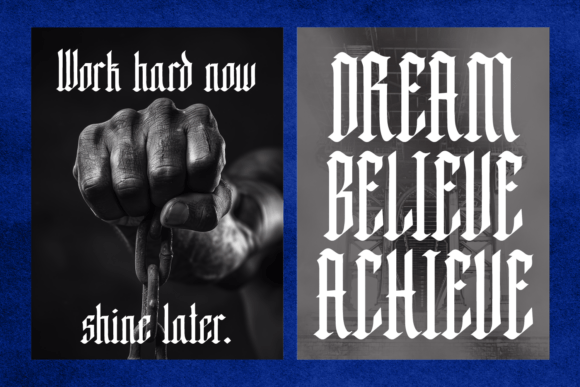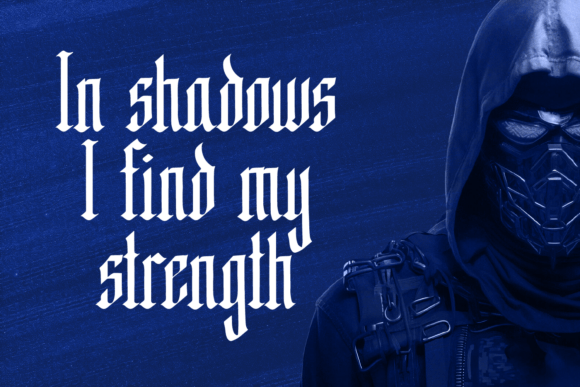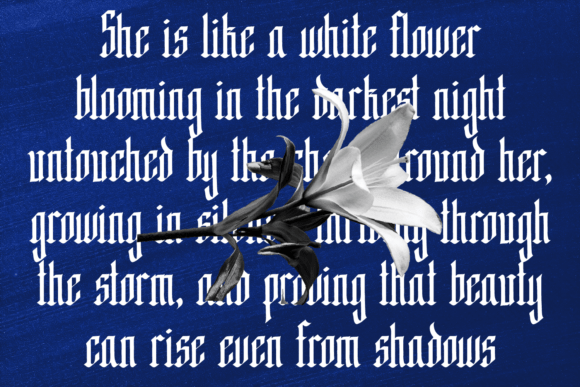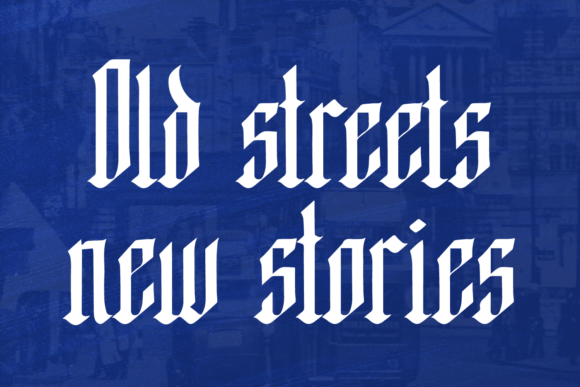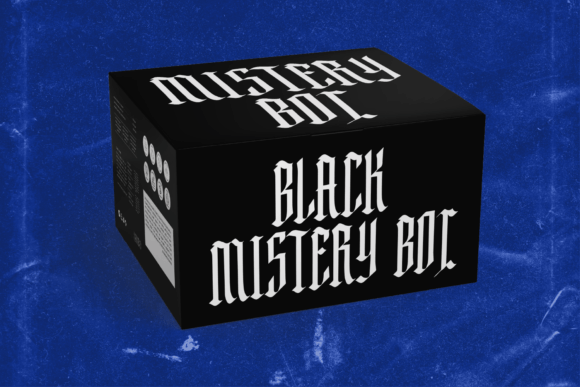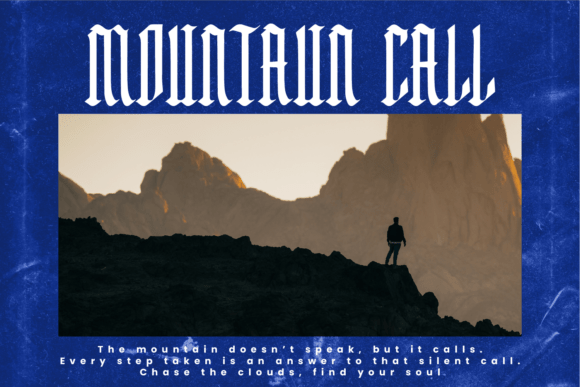
Unleash the Power of Hagevra: A Blackletter Font that Redefines Boldness
In the realm of typography, few fonts have managed to capture the essence of both ancient elegance and modern sophistication. Hagevra, a striking blackletter font, has successfully bridged the gap between the archaic charm of Gothic scripts and contemporary dynamism. This magnificent font is poised to revolutionize your design universe with its towering, acute, and definitive letterforms that exude palpable strength, fervor, and trend-setting panache.
The Birth of Hagevra: A Marriage of Eras
Hagevra’s design is rooted in the rich history of Gothic scripts, which were characterized by their dramatic flourishes and intricate details. However, this font has been carefully crafted to meet the demands of modern design, making it an ideal choice for creatives seeking to make a bold statement. By combining the best of both worlds, Hagevra’s creators have given birth to a font that is both nostalgic and forward-thinking.
Key Features of Hagevra
- Bold and Dramatic Letterforms: Hagevra’s letterforms are designed to make a lasting impression. With their towering vertical lines and acute angles, they add a level of sophistication and elegance to any design.
- Blackletter Flair: Hagevra’s blackletter roots give it a distinctive, dramatic flair that’s perfect for creating eye-catching headlines and titles.
- Contemporary Twist: Despite its historical roots, Hagevra has been carefully updated to meet the demands of modern design. Its clean lines and streamlined aesthetic make it an excellent choice for digital media.
- Versatility: Hagevra is an incredibly versatile font, suitable for a wide range of design applications, from posters and album jackets to branding and packaging.
Design Applications: Where Hagevra Shines
Hagevra’s unique blend of style and substance makes it an ideal choice for various design projects. Here are some areas where this font truly excels:
- Posters and Flyers: Hagevra’s bold, attention-grabbing letterforms make it perfect for creating striking posters and flyers that demand attention.
- Music Album Jackets: Add a touch of sophistication and elegance to your music album designs with Hagevra’s dramatic, blackletter-inspired aesthetic.
- Branding and Packaging: Hagevra’s versatility and style make it an excellent choice for branding and packaging projects, where it’s essential to create a lasting impression.
Tips for Working with Hagevra
To get the most out of Hagevra, consider the following tips:
- Experiment with Font Sizes: Hagevra’s bold letterforms can make a significant impact at larger font sizes. Don’t be afraid to experiment with different sizes to find the perfect balance for your design.
- Pair with Complementary Fonts: Hagevra’s dramatic style can be overwhelming if not balanced correctly. Pair it with complementary fonts to create visual harmony and add depth to your design.
- Play with Color: Hagevra’s bold letterforms provide an excellent foundation for creative color experimentation. Try pairing it with bold, contrasting colors to create a striking visual effect.
Hagevra is more than just a font – it’s a design statement. With its unique blend of archaic charm and contemporary dynamism, it’s poised to revolutionize the way you approach typography. Whether you’re a designer, craftsperson, or simply someone who appreciates the art of typography, Hagevra is an excellent addition to your creative toolkit. So, step into the world where ancient elegance meets modern sophistication, and forge your expression with Hagevra.